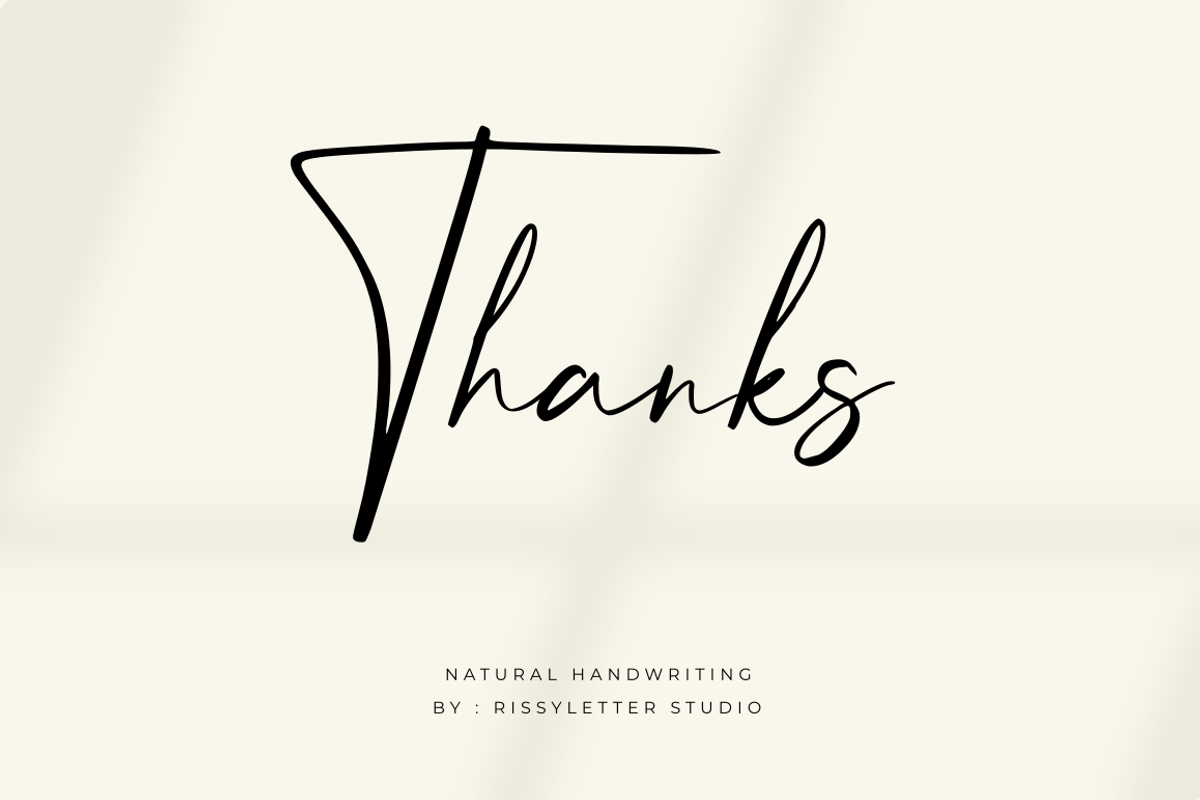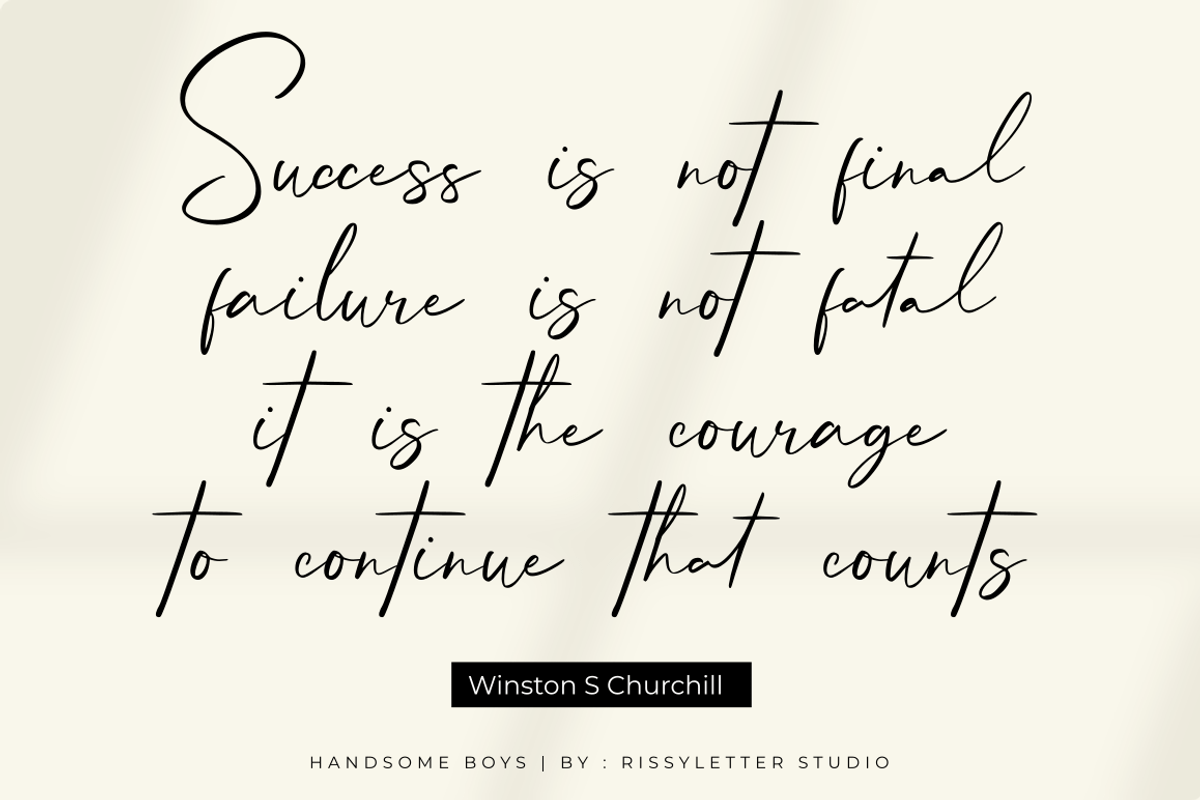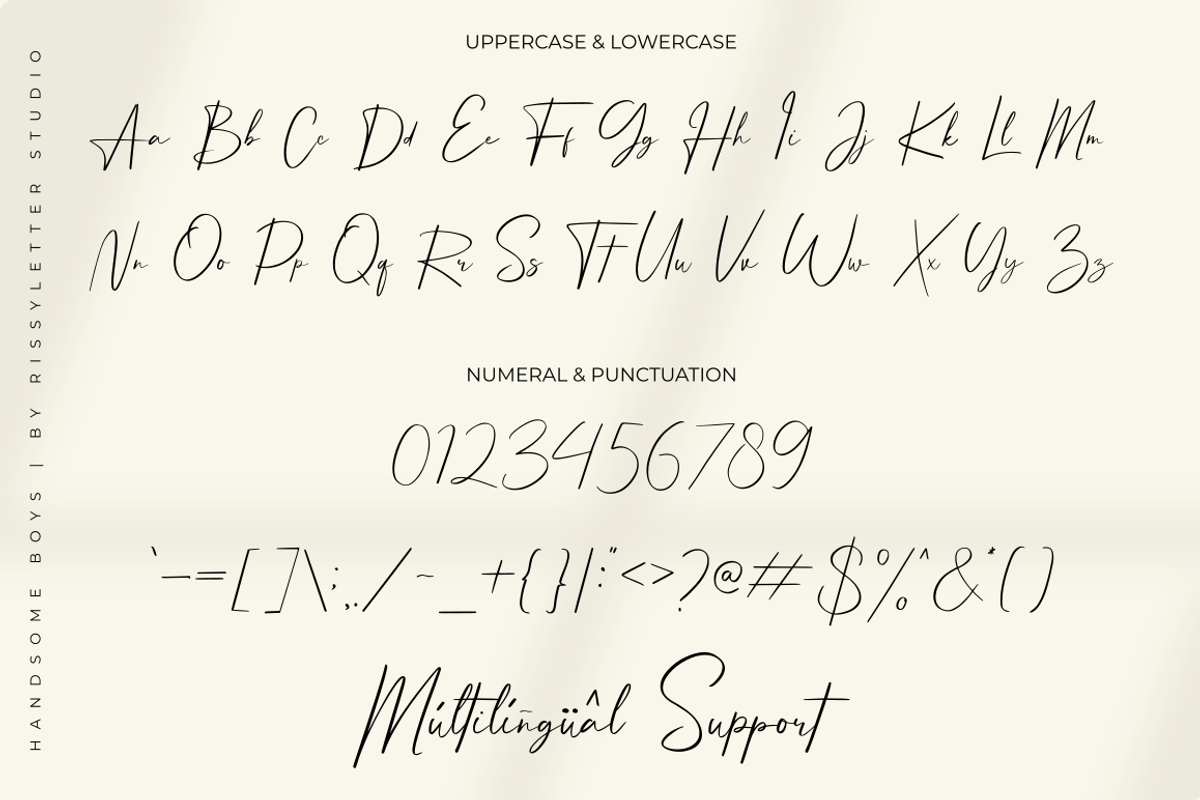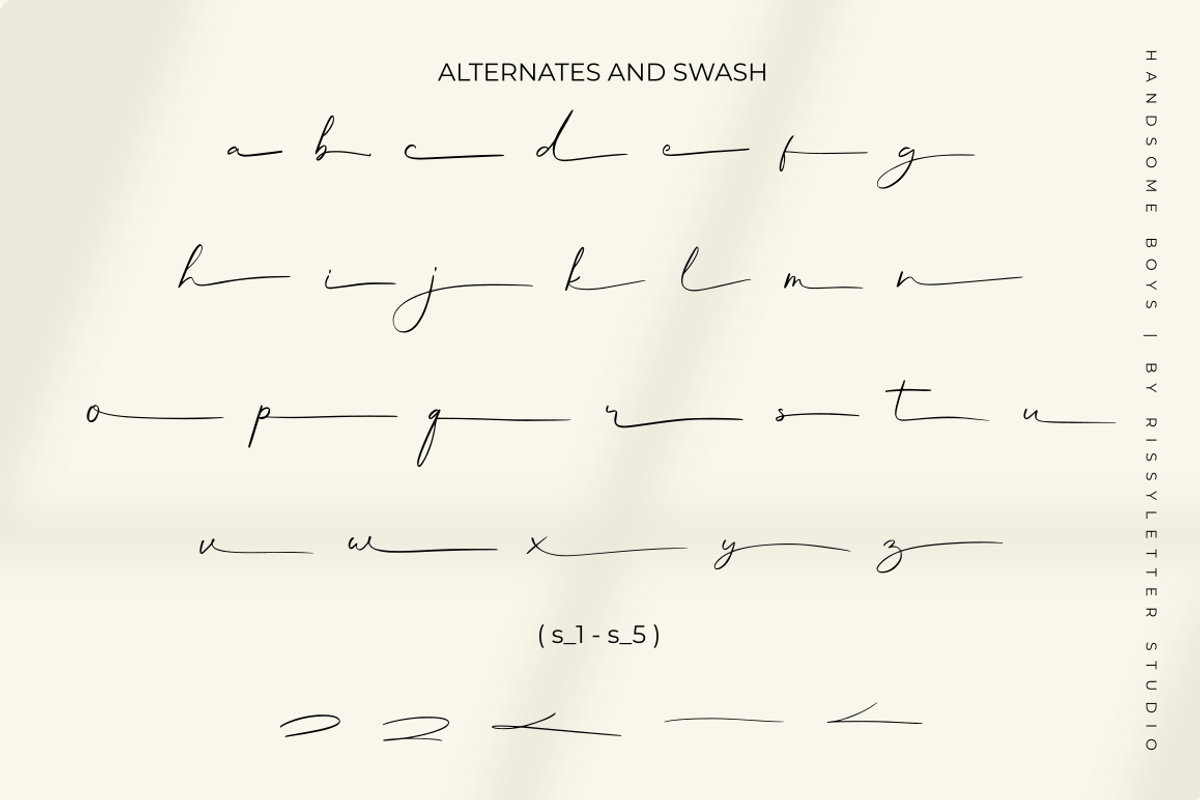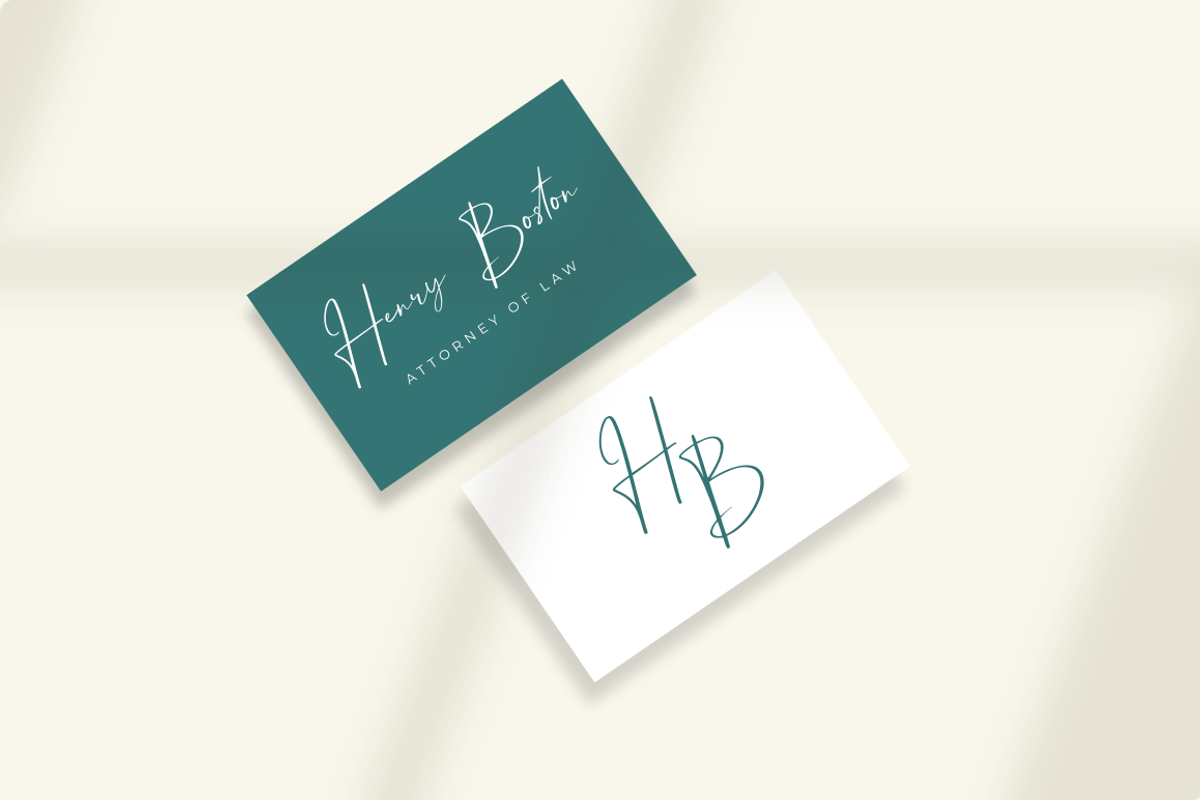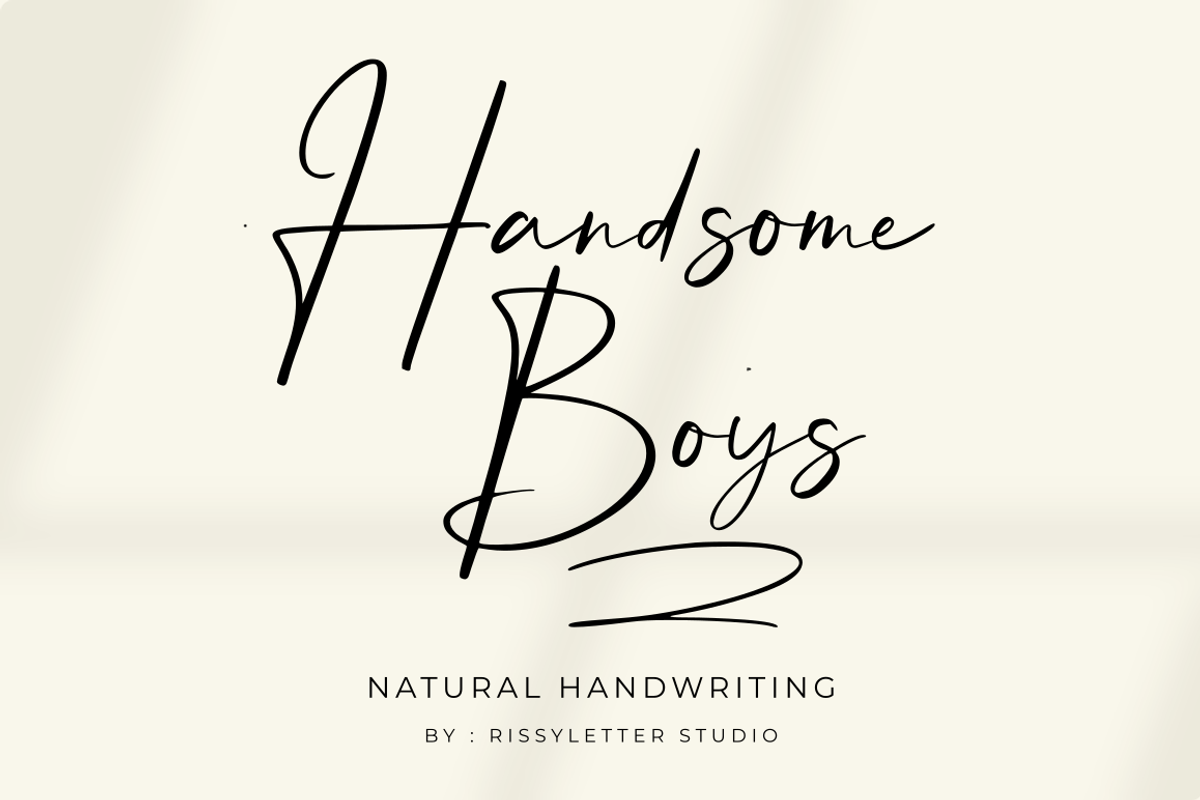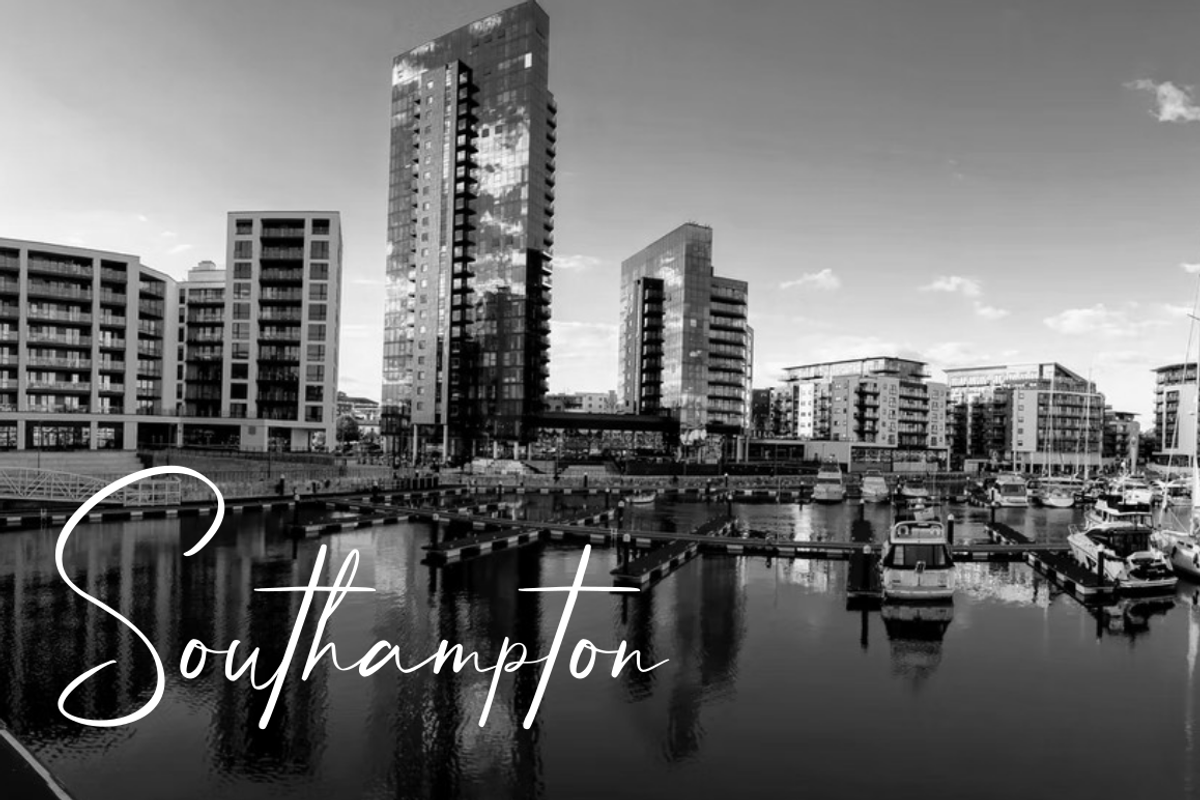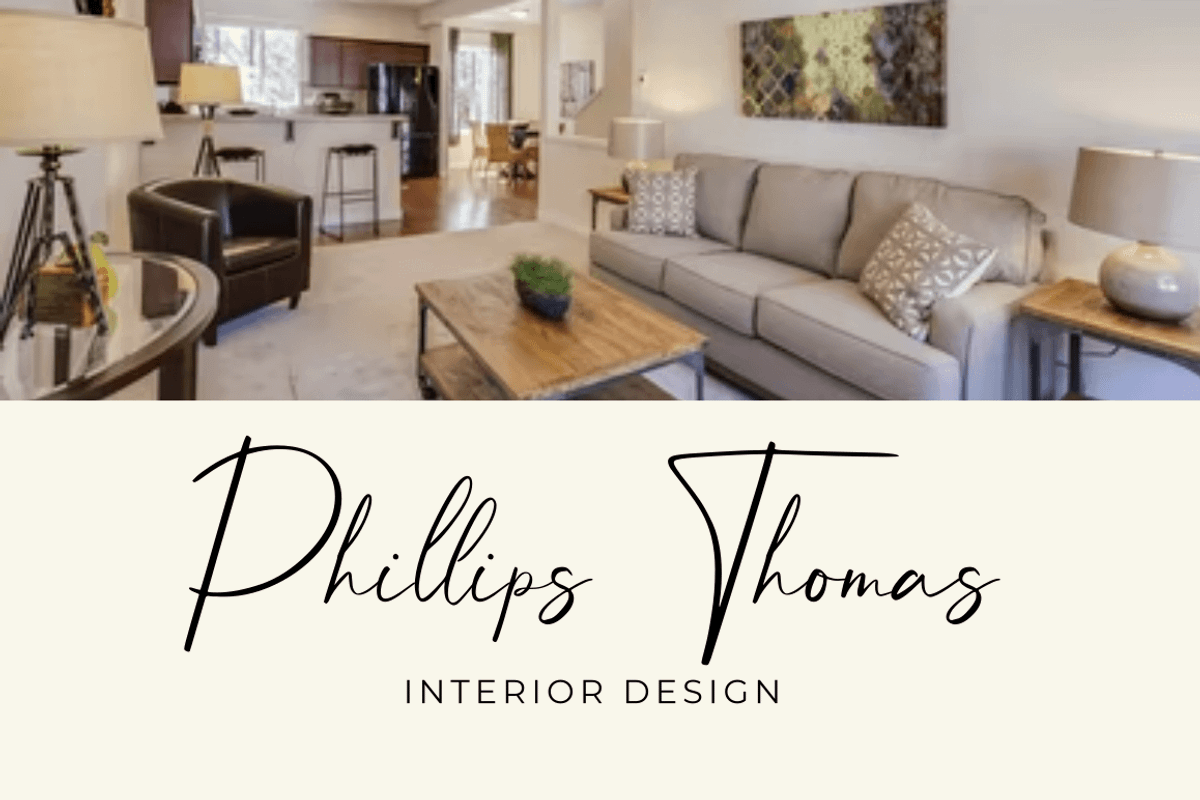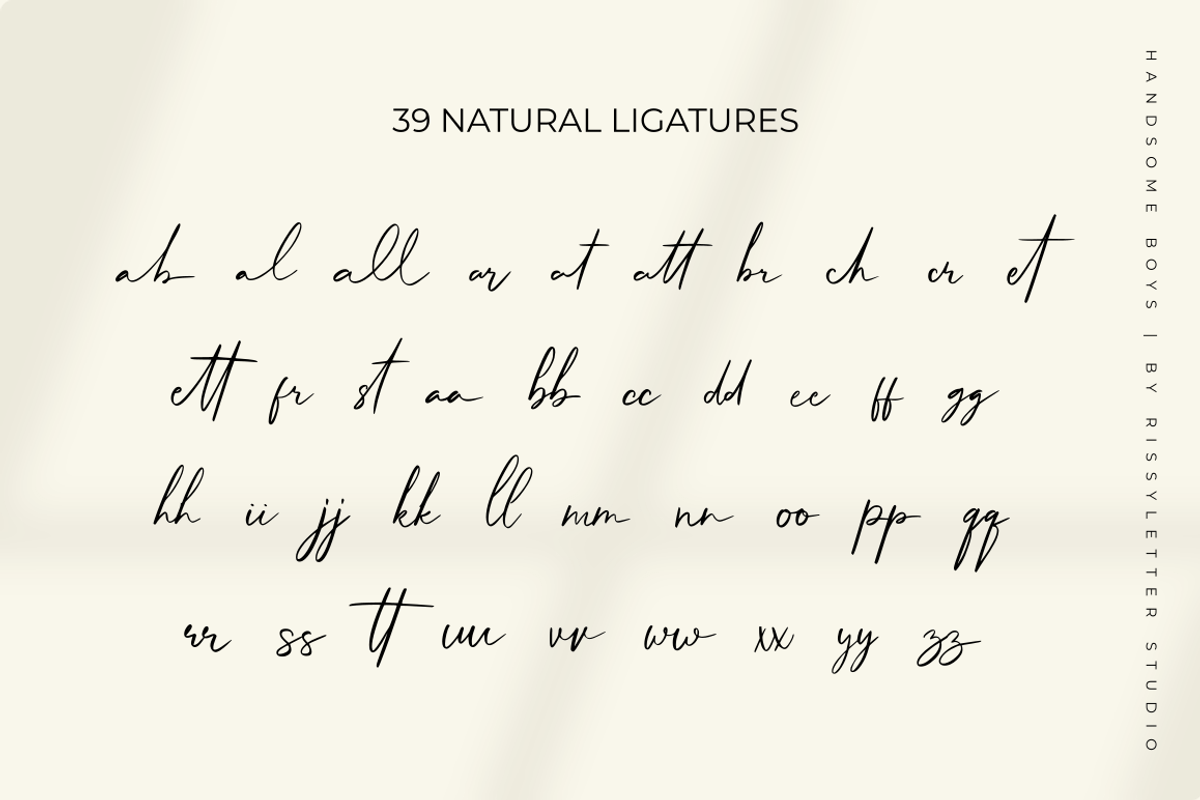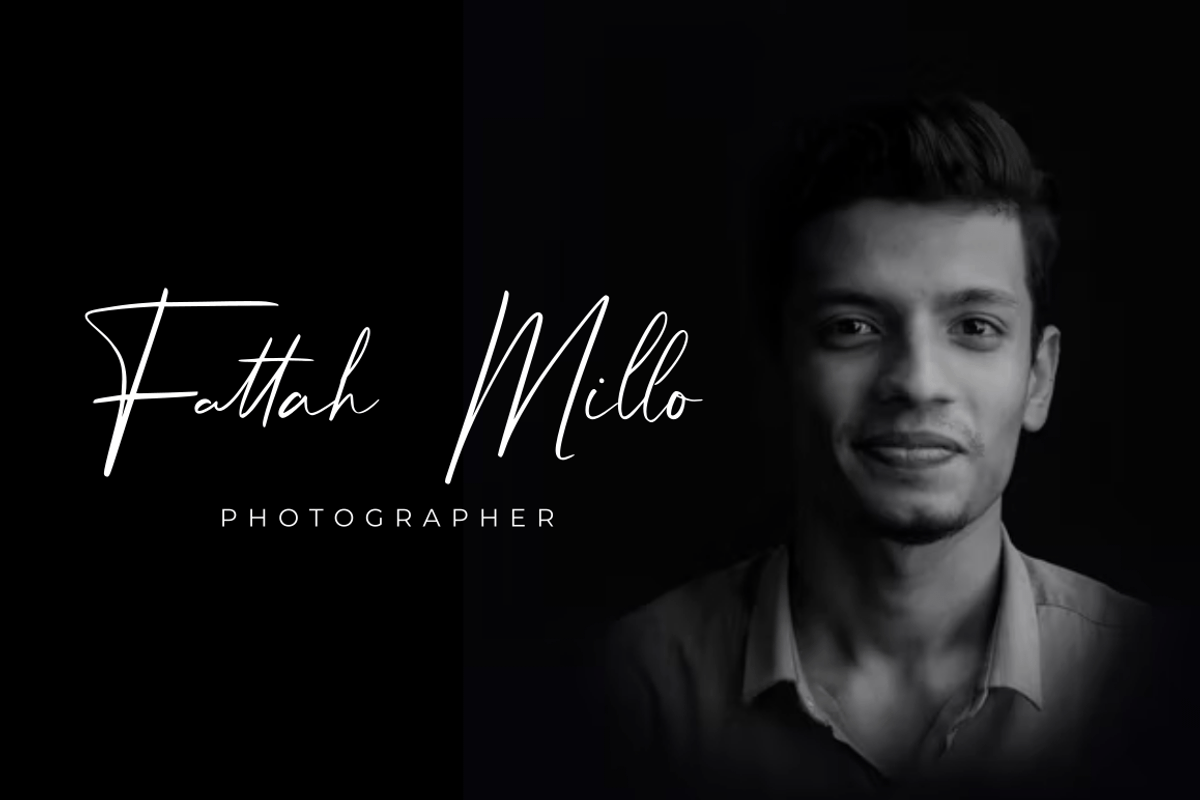
Handsome Boys | Natural Signature
Handsome Boys Font is a font created for those of you who are looking for fonts for wedding invitations, photographers, signatures, modern websites, branding, etc. support for 50+ languages, This font will look awesome and amazing in many ways to your latest project.
- More than 280 of glyphs (include Uppercase, Lowercase, Numerals & Punctuations, Stylistic,Ligatures )